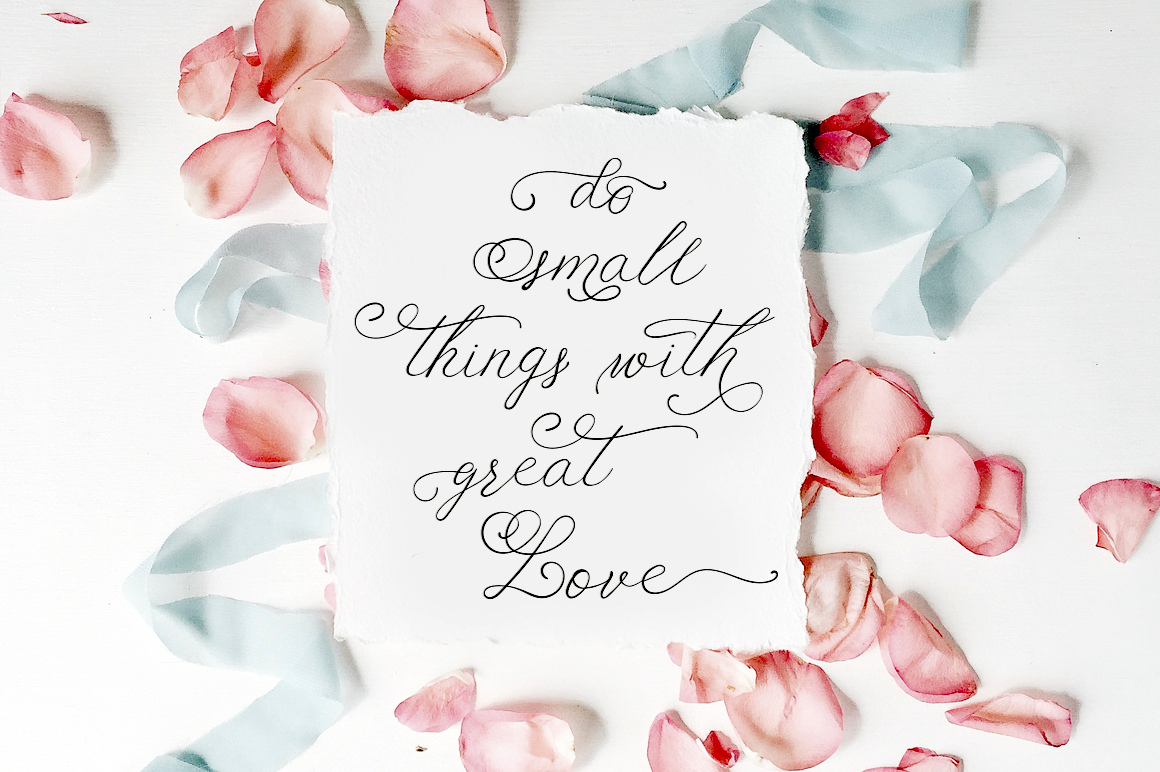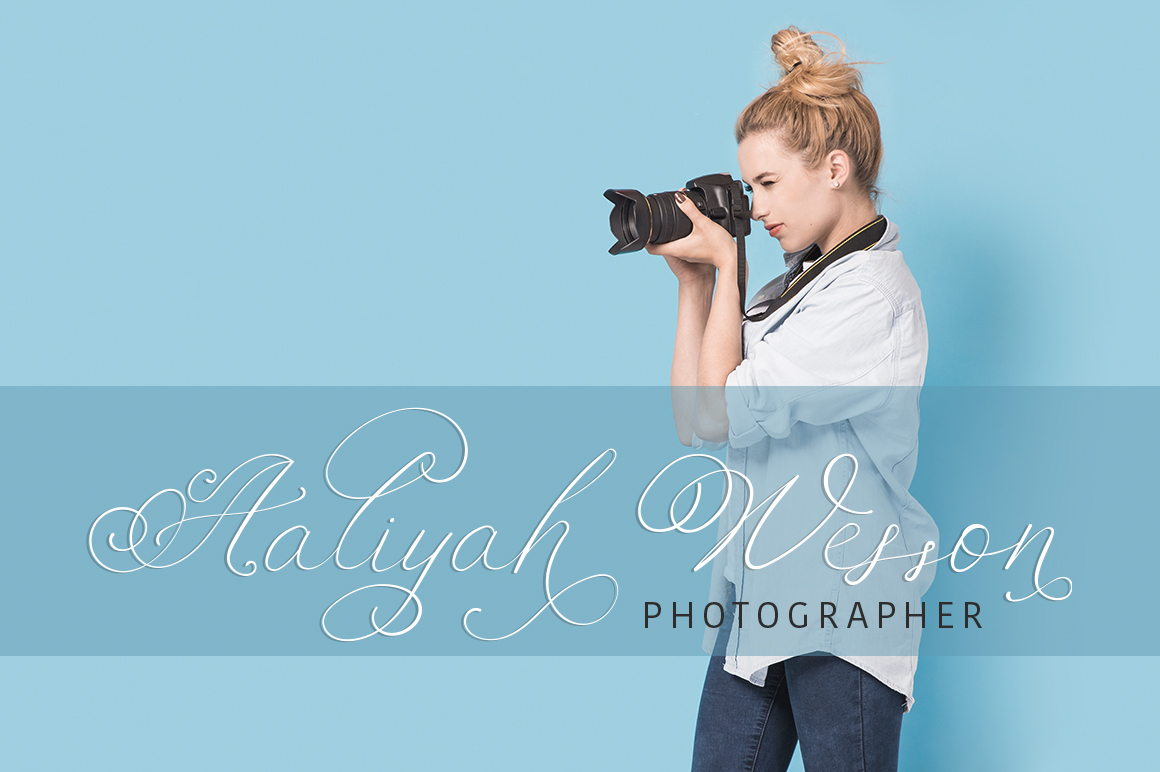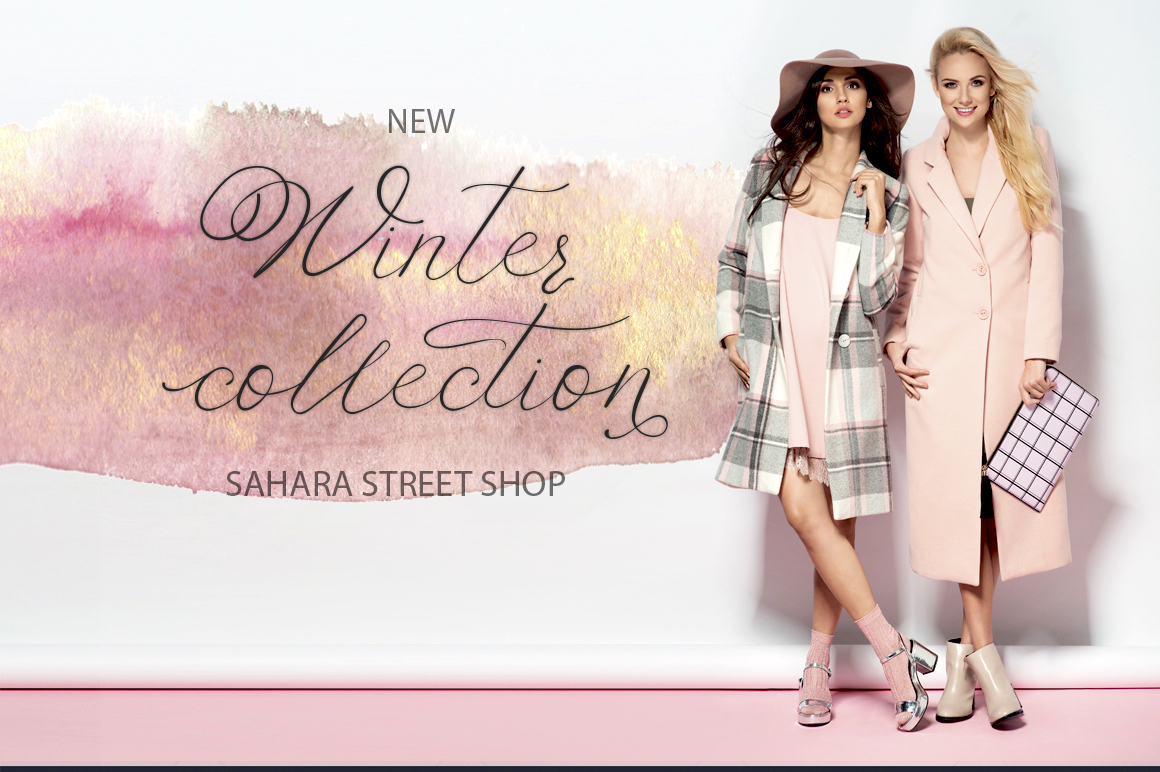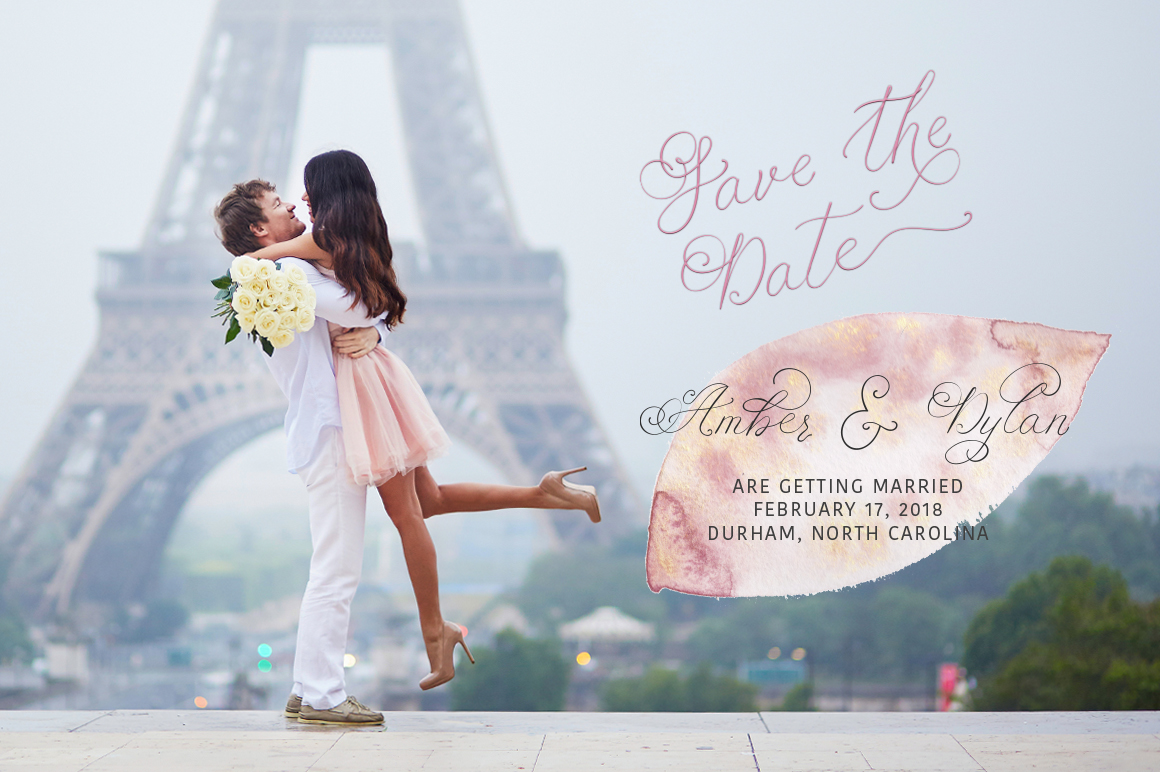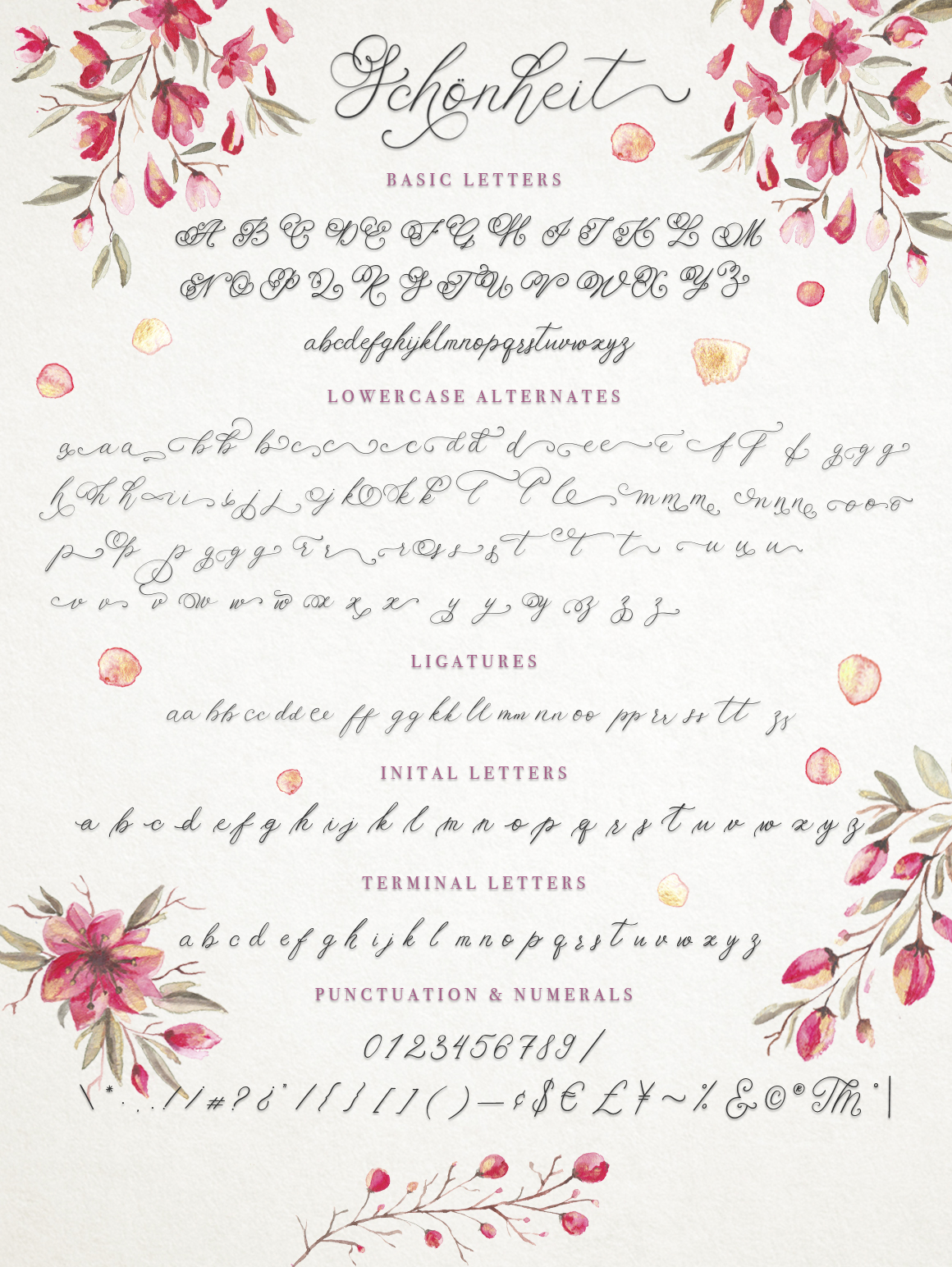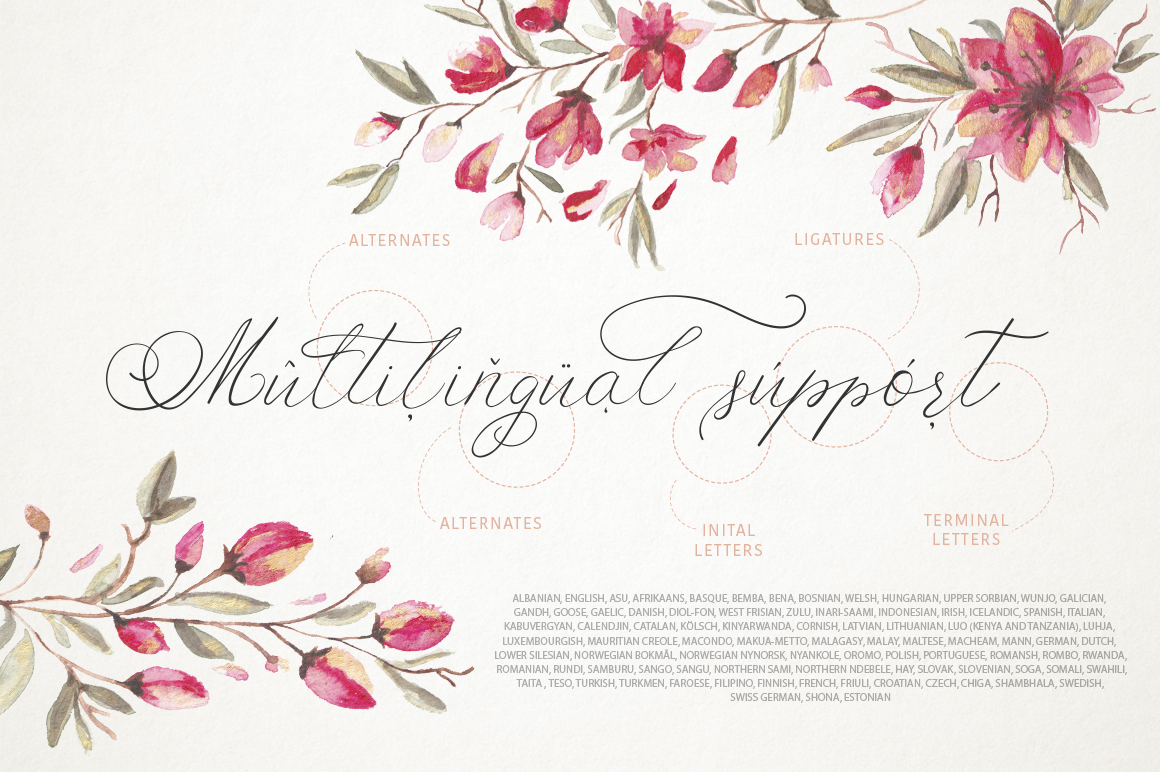
Introduction to Schönheit Font
Schönheit is a beautifully delicate script with gentle character and flow.
Schönheit translated from German means beautiful woman, and this font lives up to its namesake with every glyph thought out with German pedantry in mind .
Key Features of Schönheit Font